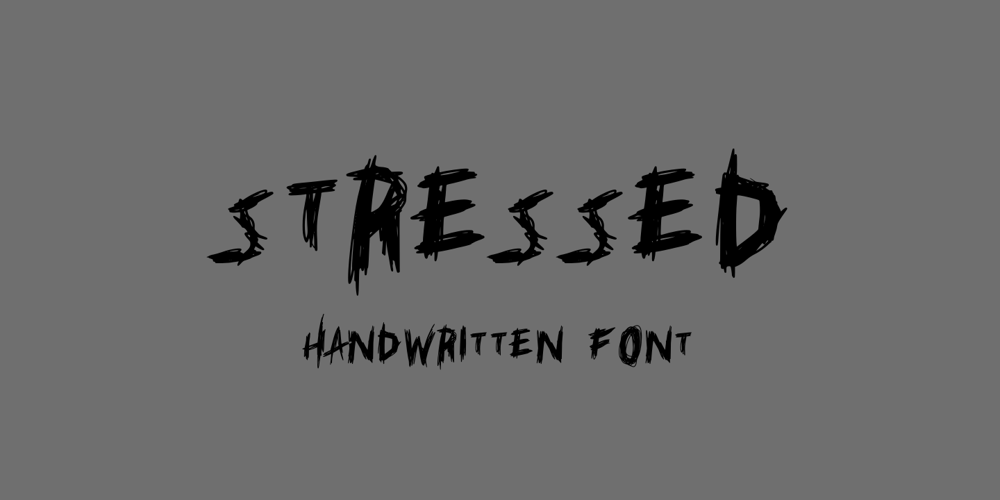
Stressed
Stressed font
Stressed Font Family was designed by Arief Rochman and published by 4RM Font. Stressed contains 1 styles and family package options. Inspired by brutalism and horror movie designs, the Stressed font is made with random pen strokes, giving this font a brutal/unbalanced feel. suitable for use in graphic design, especially with horror themes such as movie posters, and Brutalism graphic design.